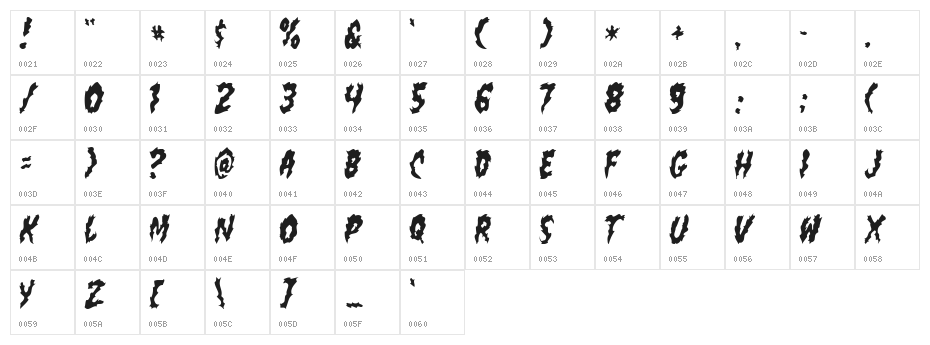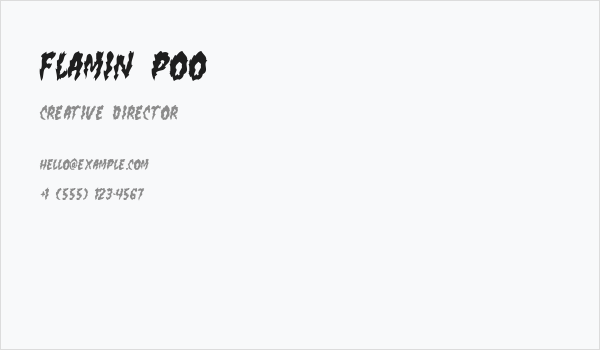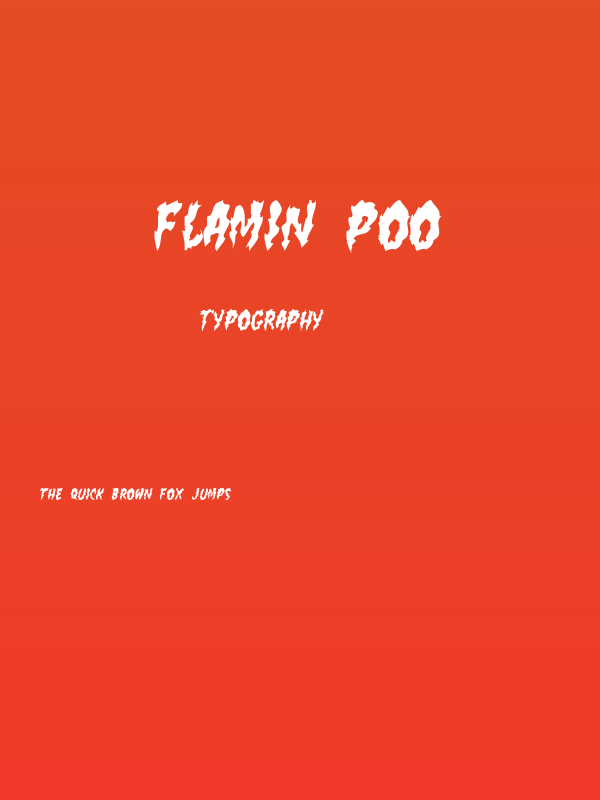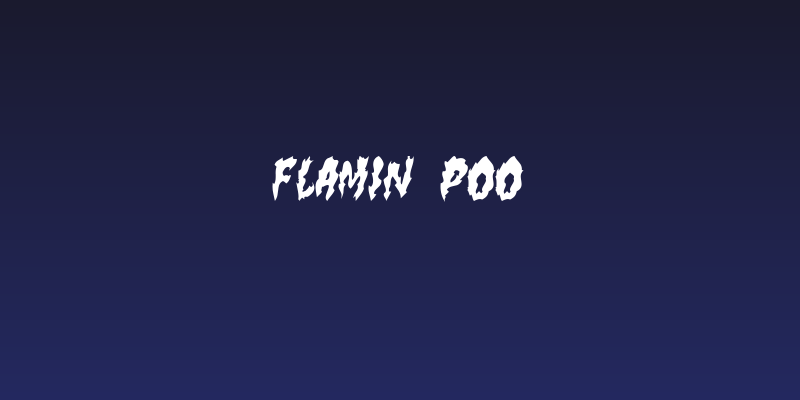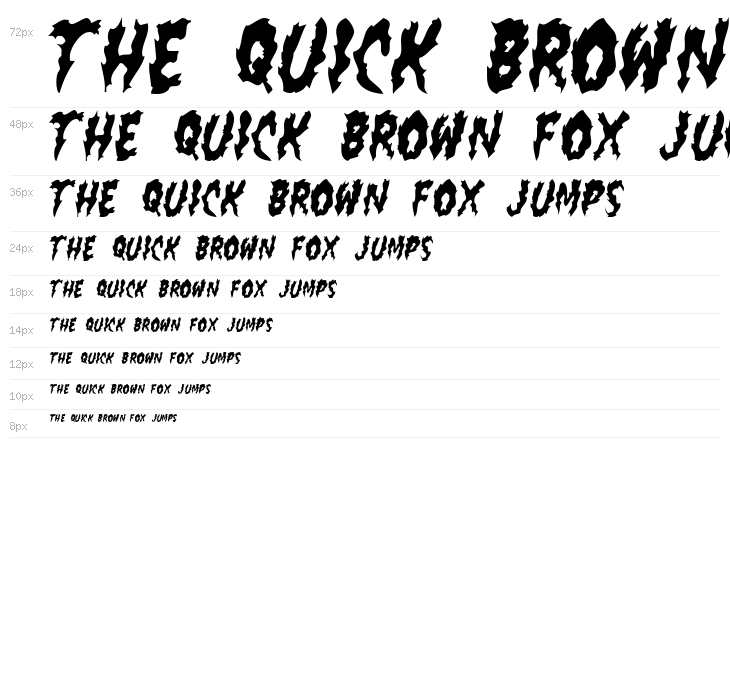
flamin poo Font
flamin poo Description
This font features a bold and jagged design, reminiscent of flames or sharp edges. The characters have an irregular, fiery appearance, giving them a dynamic and energetic feel. The uppercase and lowercase letters maintain a consistent style, with exaggerated curves and pointed ends that create a sense of movement. The numbers and special characters follow the same aesthetic, ensuring a cohesive look across all glyphs. This font is ideal for projects that require a dramatic and eye-catching typeface, such as posters, album covers, or themed events.
| Proposed Projects | Ideal for posters, album covers, themed events, or any project needing a dramatic typeface. |